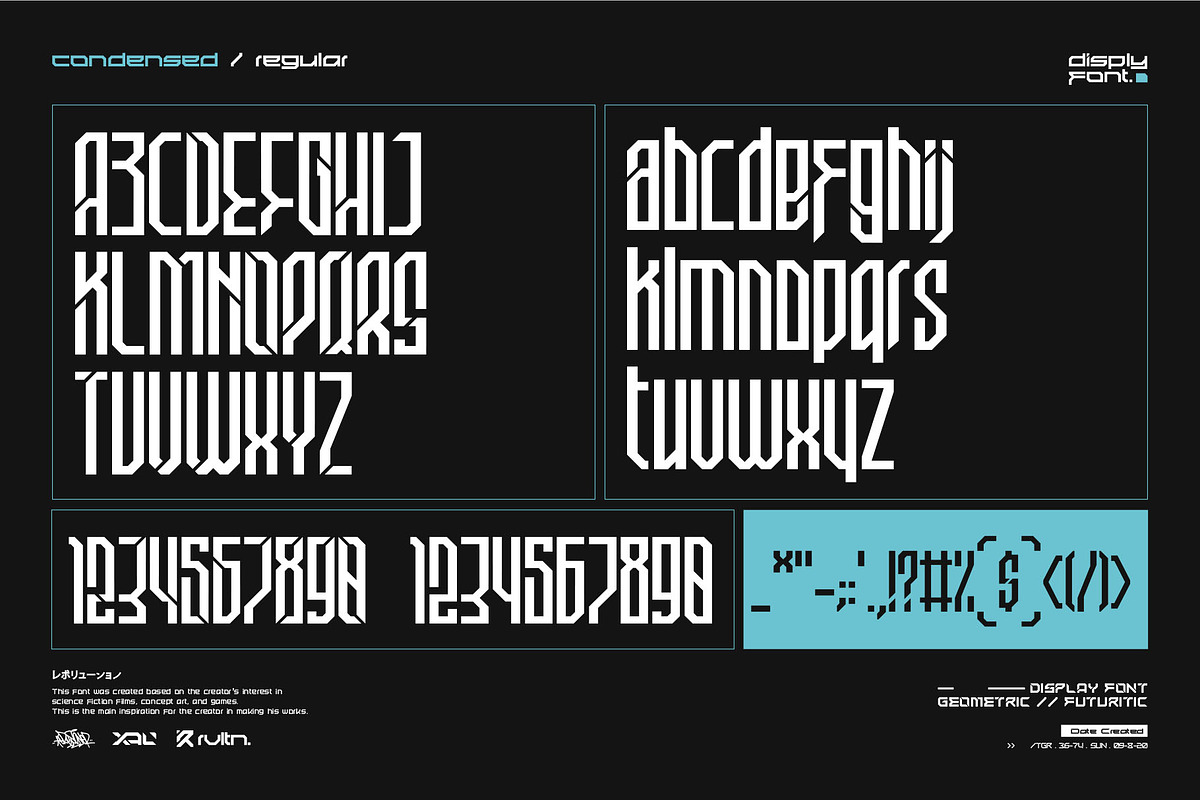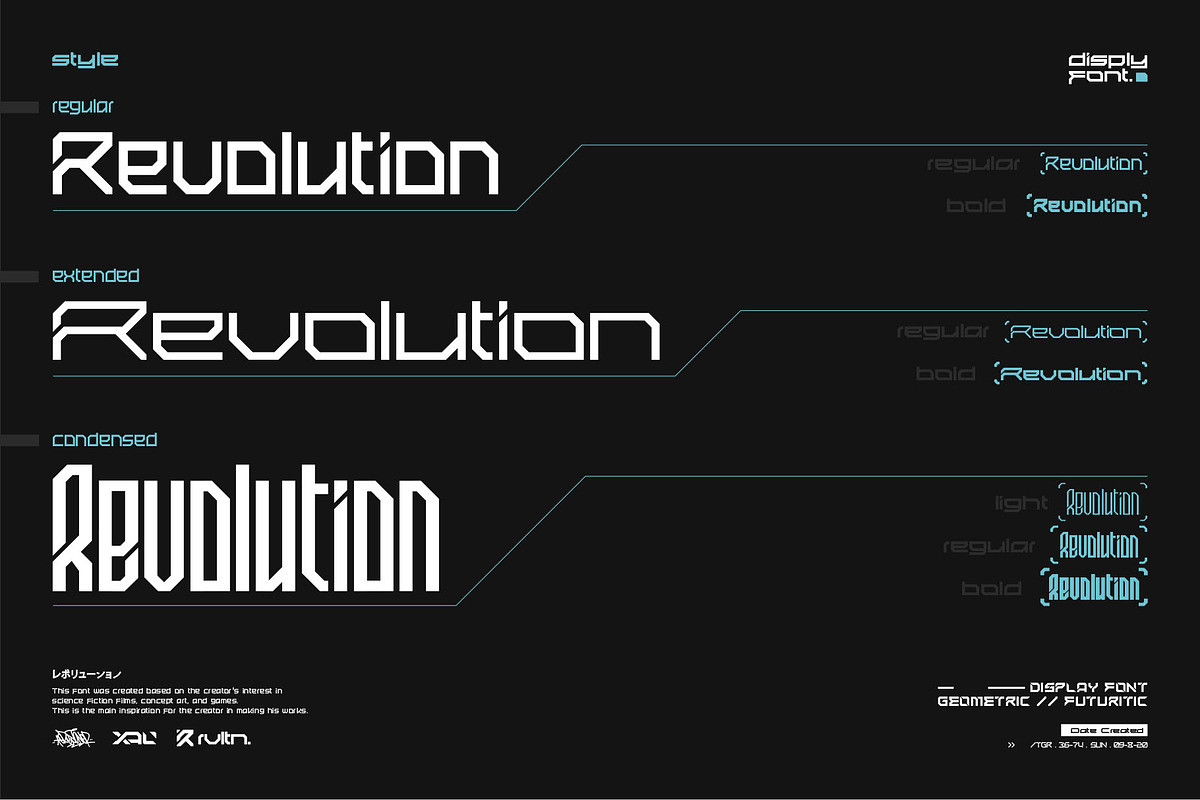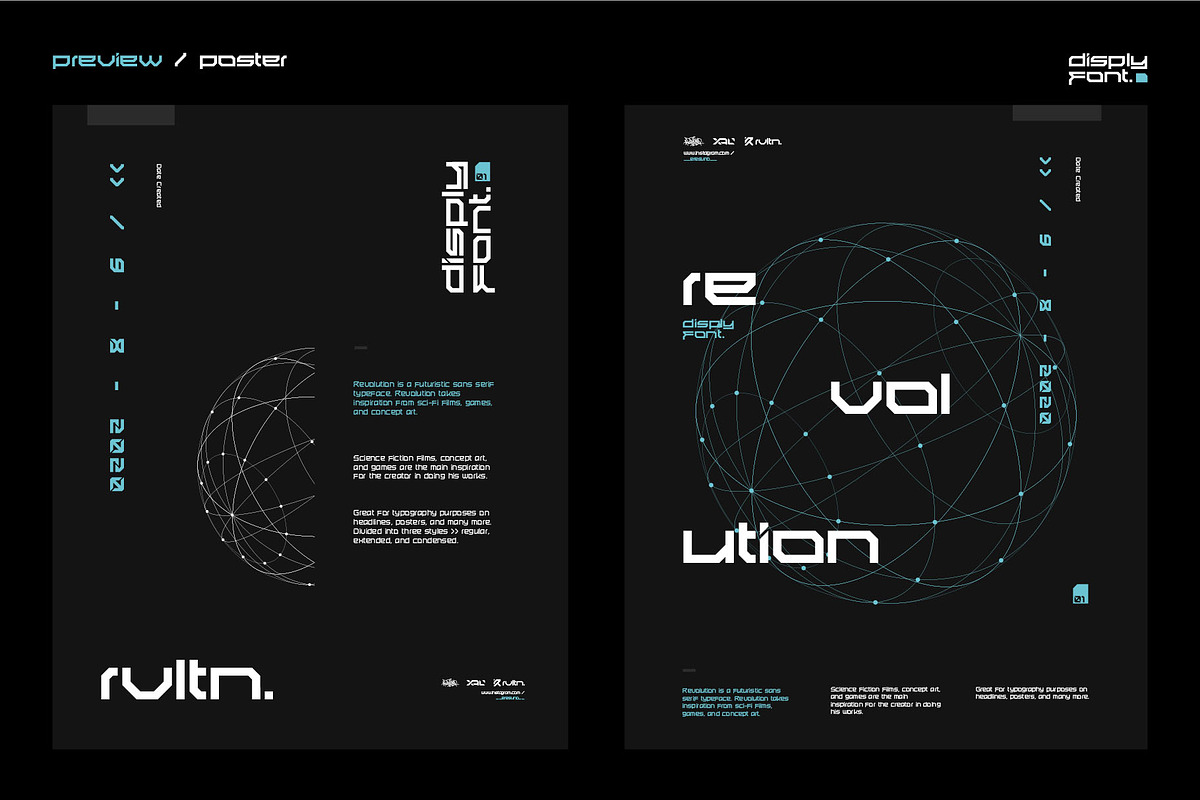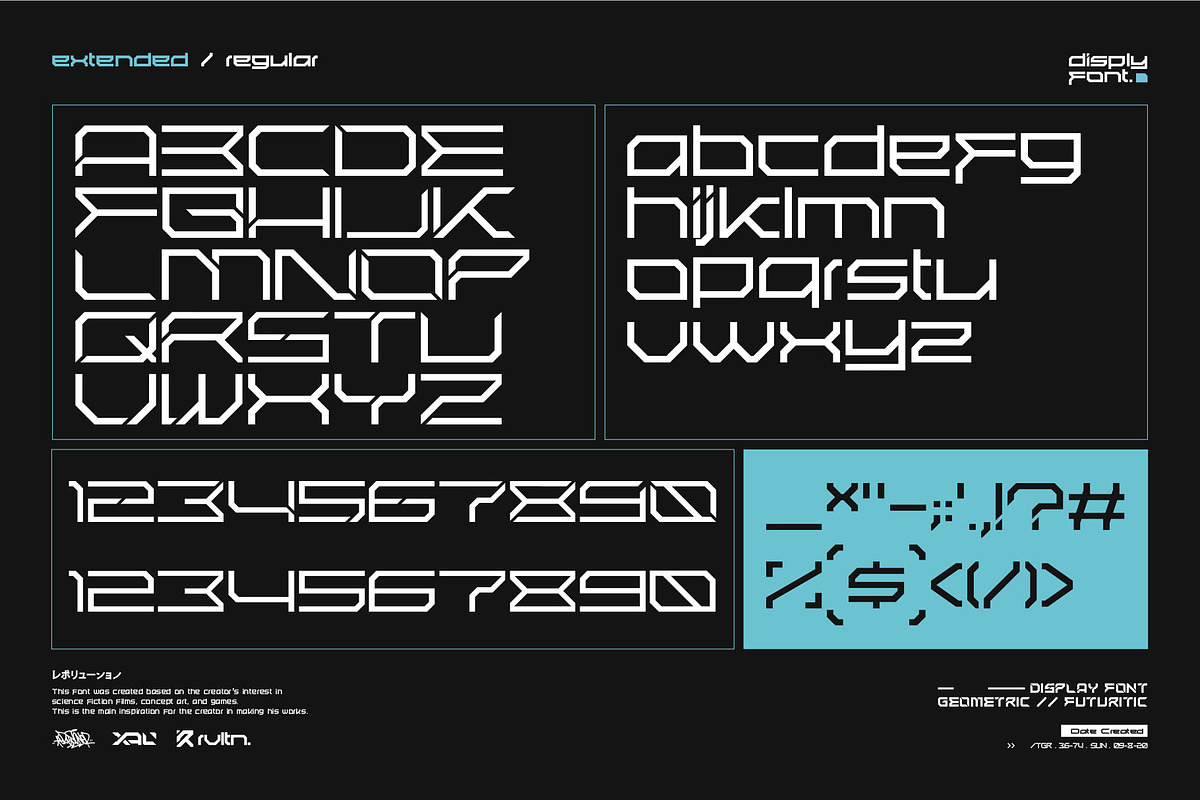
Revolution display
Revolution is a futuristic sans-serif typeface. Revolution takes inspiration from sci-fi films, games, and concept art. Great for typography purposes on headlines, posters, and many more
- Revolution Regular (2 weights)
- Revolution Extended (2 weights)
- Revolution Condensed (3 weights)